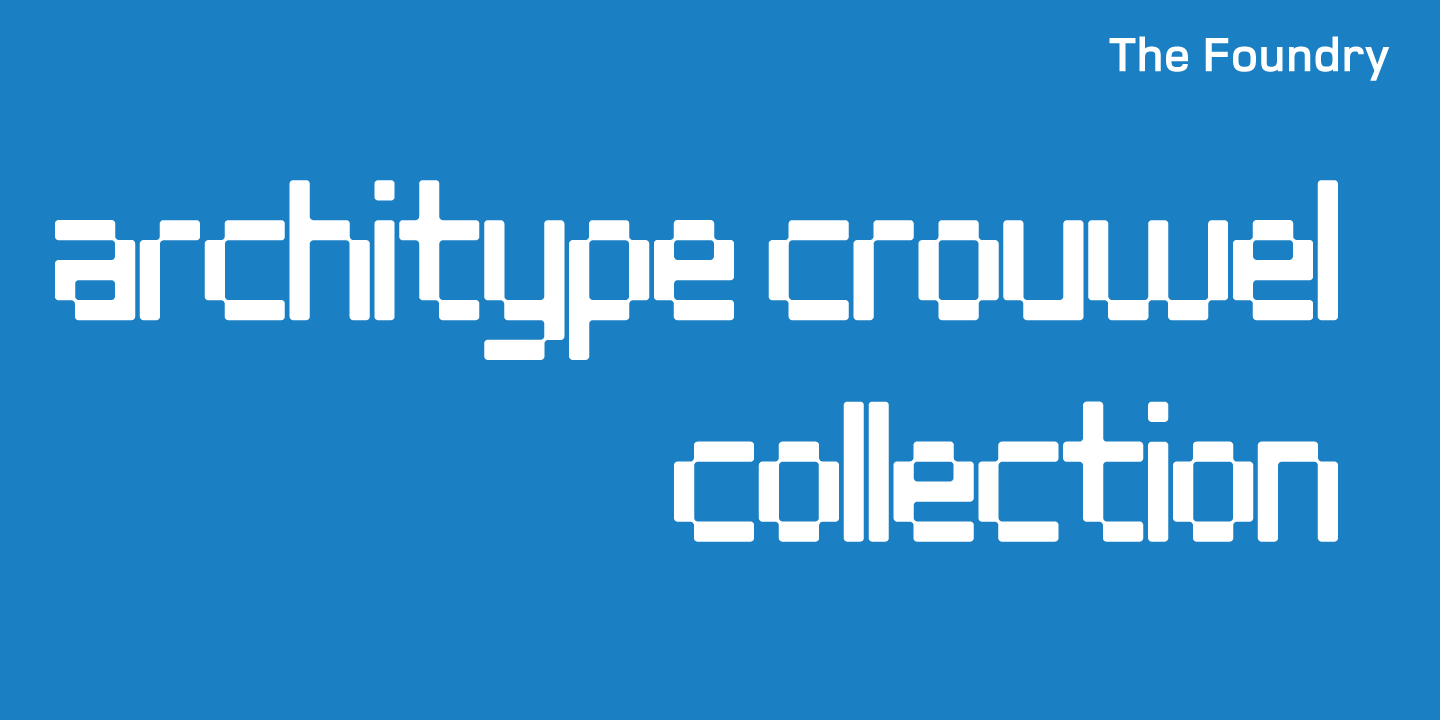
Architype Stedelijk Free Download
Architype Stedelijk Font Free Download
The Architype Stedelijk Font is a unique and historically significant typeface, meticulously designed to capture the experimental and avant-garde spirit of the Stedelijk Museum in Amsterdam, particularly its iconic graphic identity from the mid-20th century. Imagine this font gracing exhibition catalogs for modern art, adding a sophisticated, architectural precision to cultural institution branding, or bringing a distinctive, intellectual edge to design publications. Its often geometric, monolinear forms, and unique character sets make it an excellent choice for branding that aims to convey innovation, artistic modernism, or a deep appreciation for design history. Architype Stedelijk Font is also perfectly suited for gallery signage, academic typography, and any project where you want to infuse your message with a sense of thoughtful design and historical gravitas.
What makes Architype Stedelijk Font so exciting is its immediate ability to evoke a specific era of groundbreaking design and intellectual curiosity. It possesses an undeniable "designer's choice" appeal that makes your projects feel both historically informed and remarkably contemporary. The meticulous attention to detail in its letterforms, often reflecting the specific design principles of its historical precedent, ensures that your text isn't just read; it's appreciated as a piece of functional art. This font doesn't just display words; it articulates them with an air of sophisticated intelligence and a sense of minimalist beauty, making every headline feel like a design statement. Its distinctiveness ensures your designs will stand out, resonating with an audience that appreciates unique visual storytelling and a strong connection to design heritage.
The Architype Stedelijk Font family, crafted to encapsulate its signature historical style, typically focuses on a core Regular weight that embodies its unique character. Given its origins in specific design movements, extensive weight variations might be less common than in more utilitarian typefaces. However, a "Pro" version may include valuable stylistic alternates or ligatures that are crucial for replicating the nuances of its original design. It might also feature extended character sets to support various languages, maintaining its international appeal. The true power of Architype Stedelijk Font lies in its consistent and historically accurate design across all characters, making it highly effective for its intended purpose. For those seeking the evocative Architype Stedelijk Font Free Download, its unique aesthetic offers a powerful connection to design's rich past.